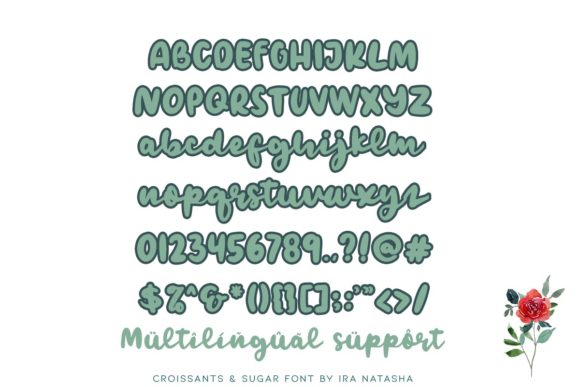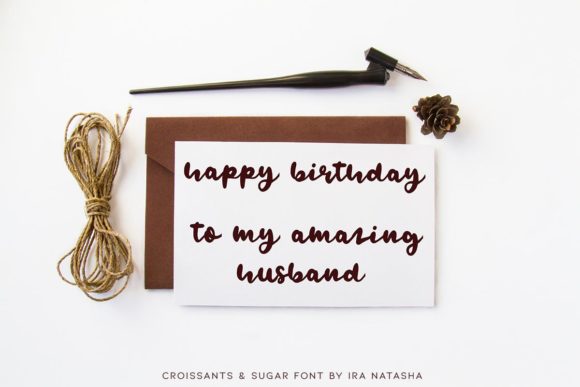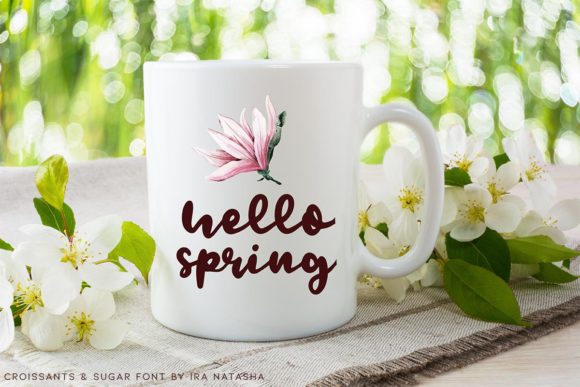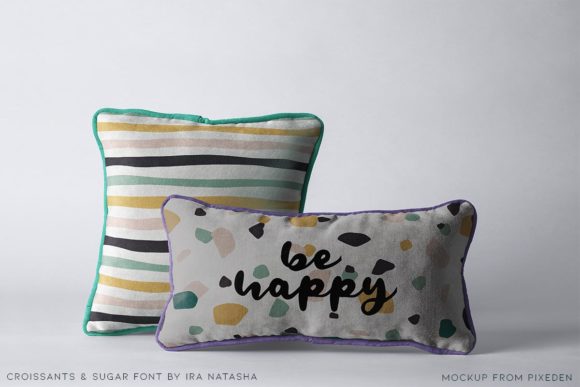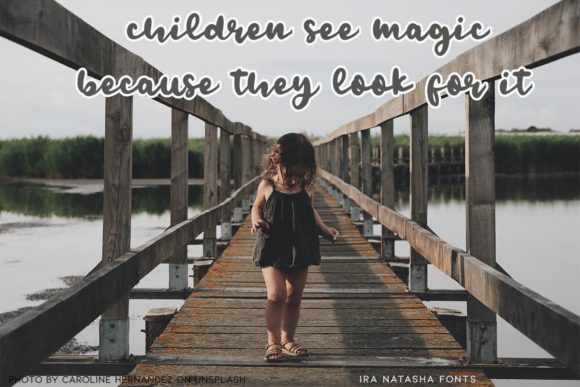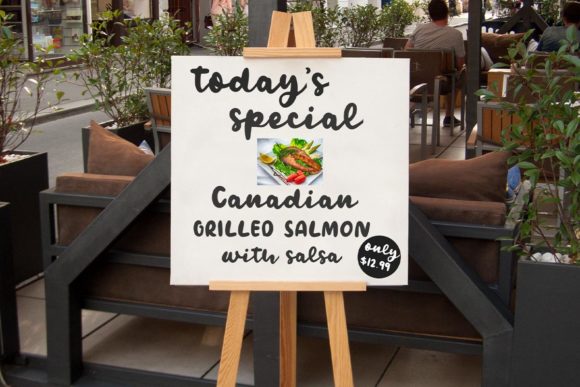
Croissants & Sugar Font
About Croissants & Sugar Font
Croissants & Sugar is a sweet and flowing handwritten font. It looks stunning on wedding invitations, thank you cards, quotes, greeting cards, logos, business cards and every other design which needs a handwritten touch.